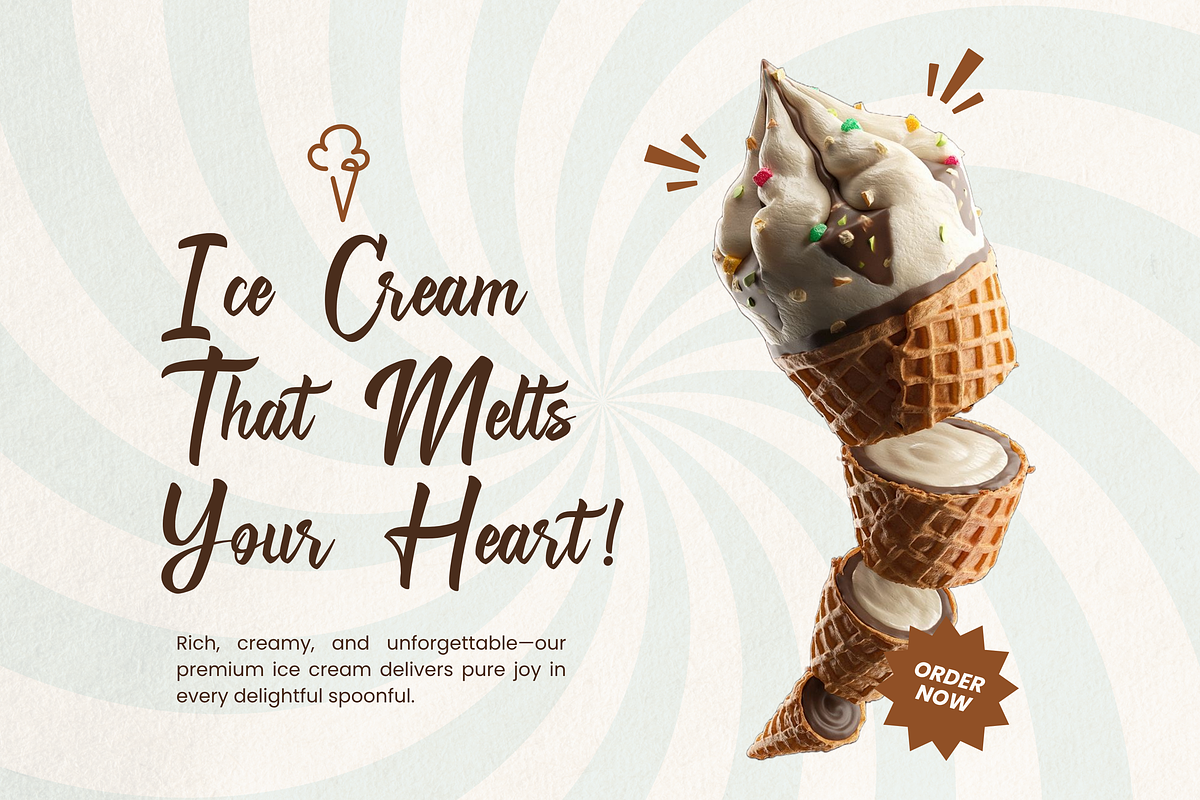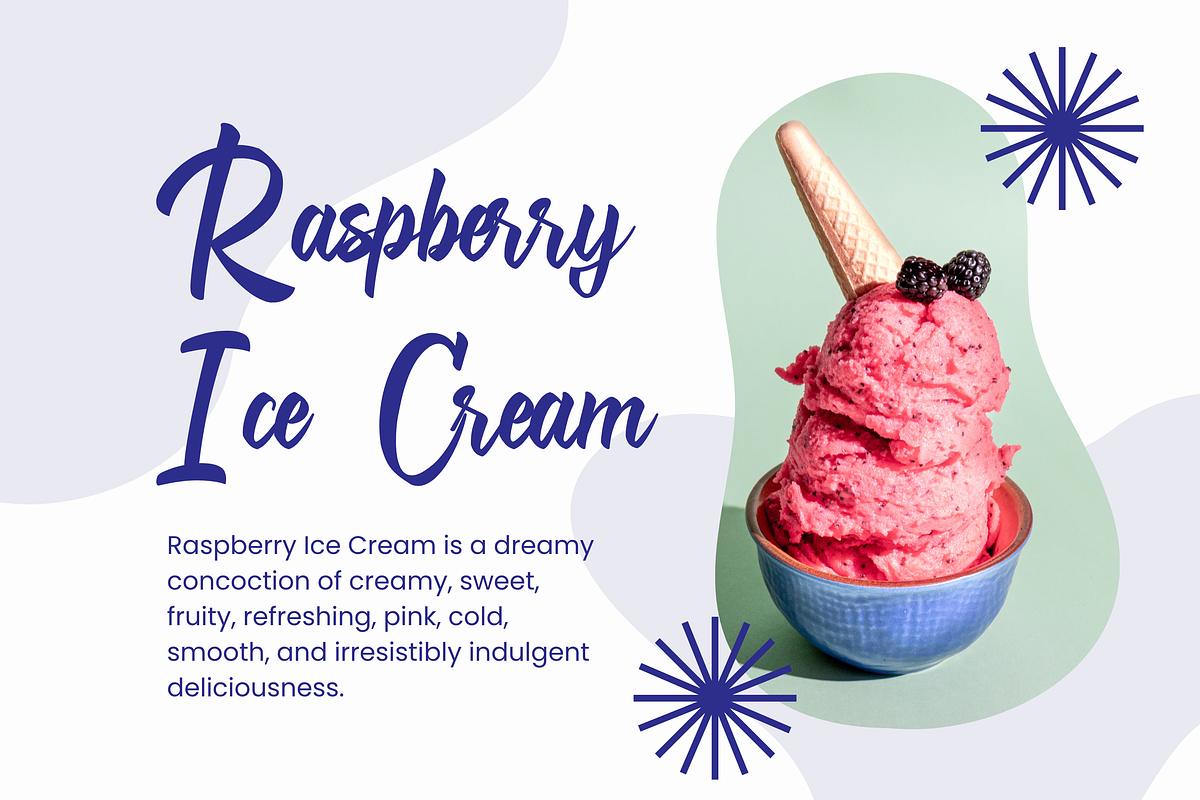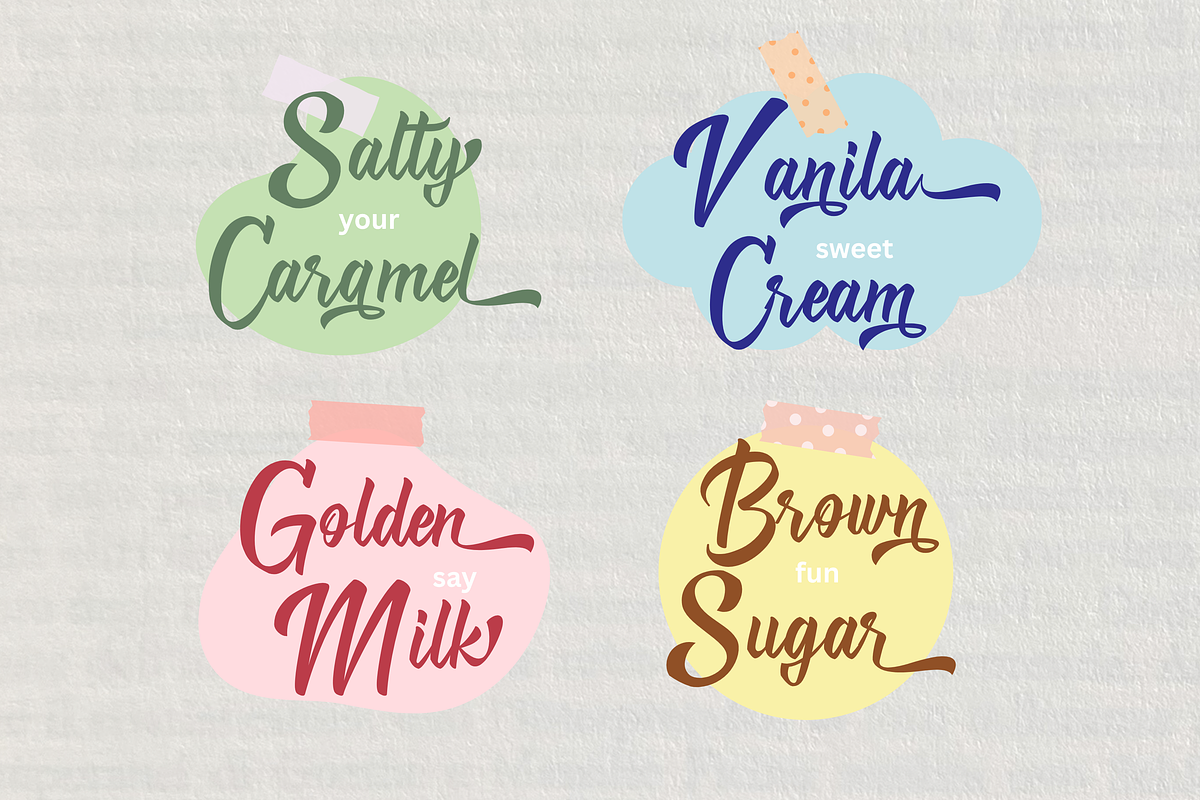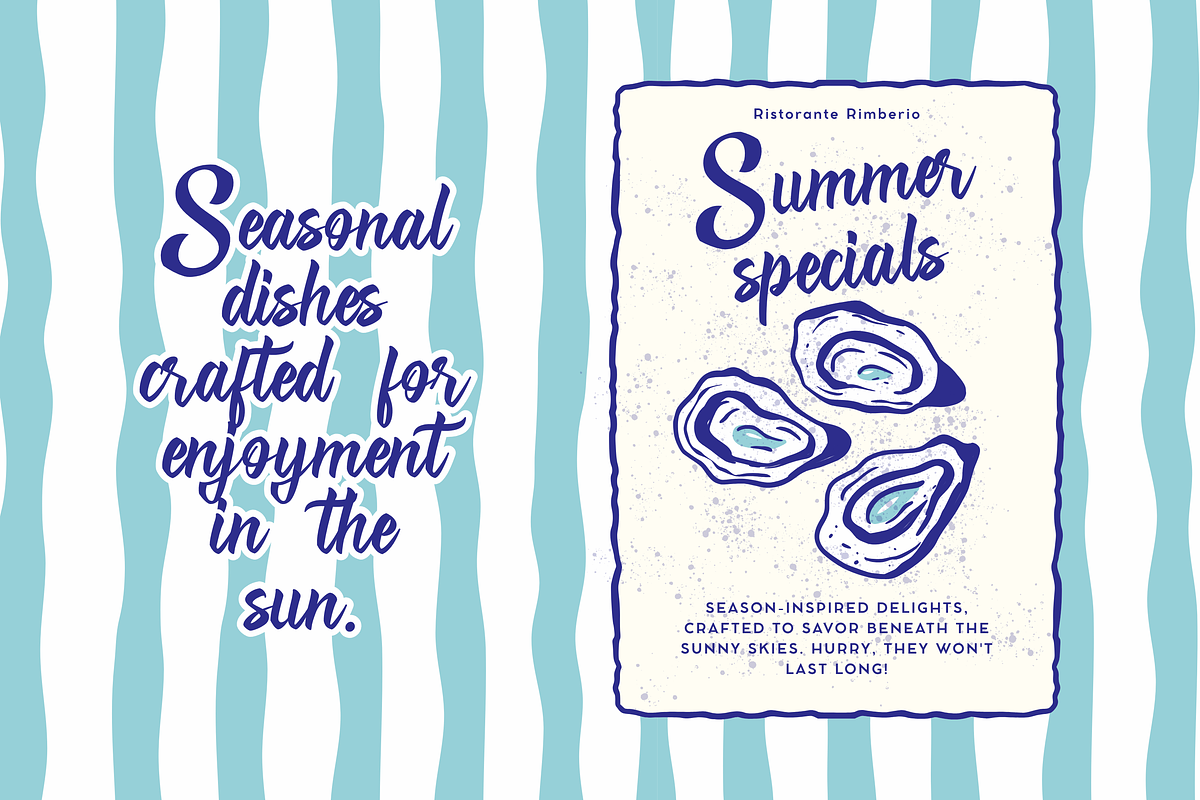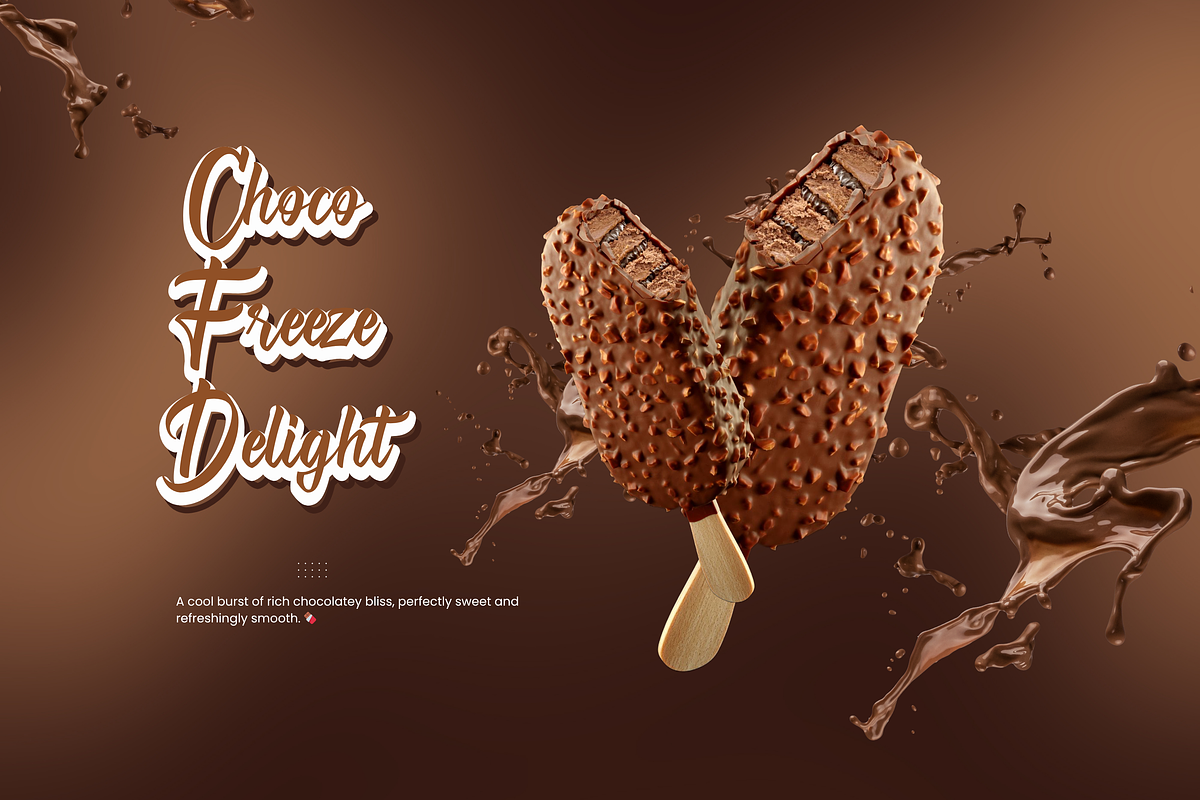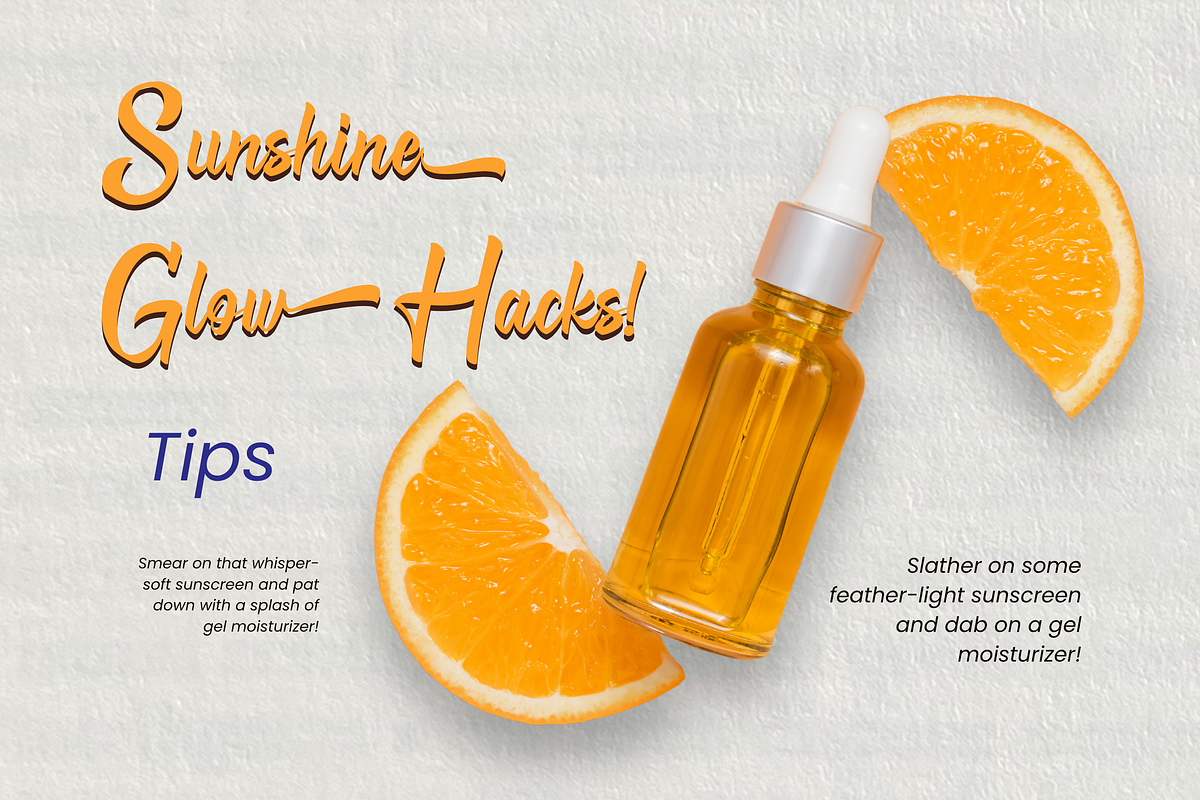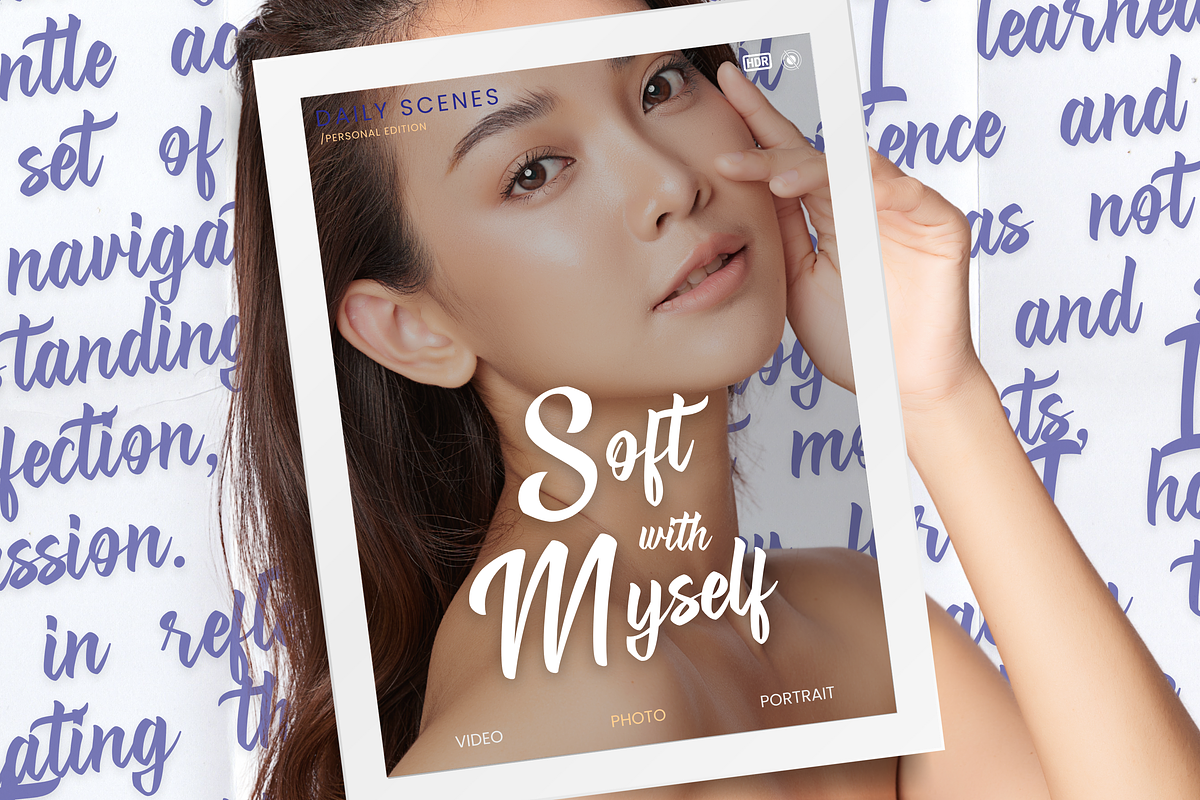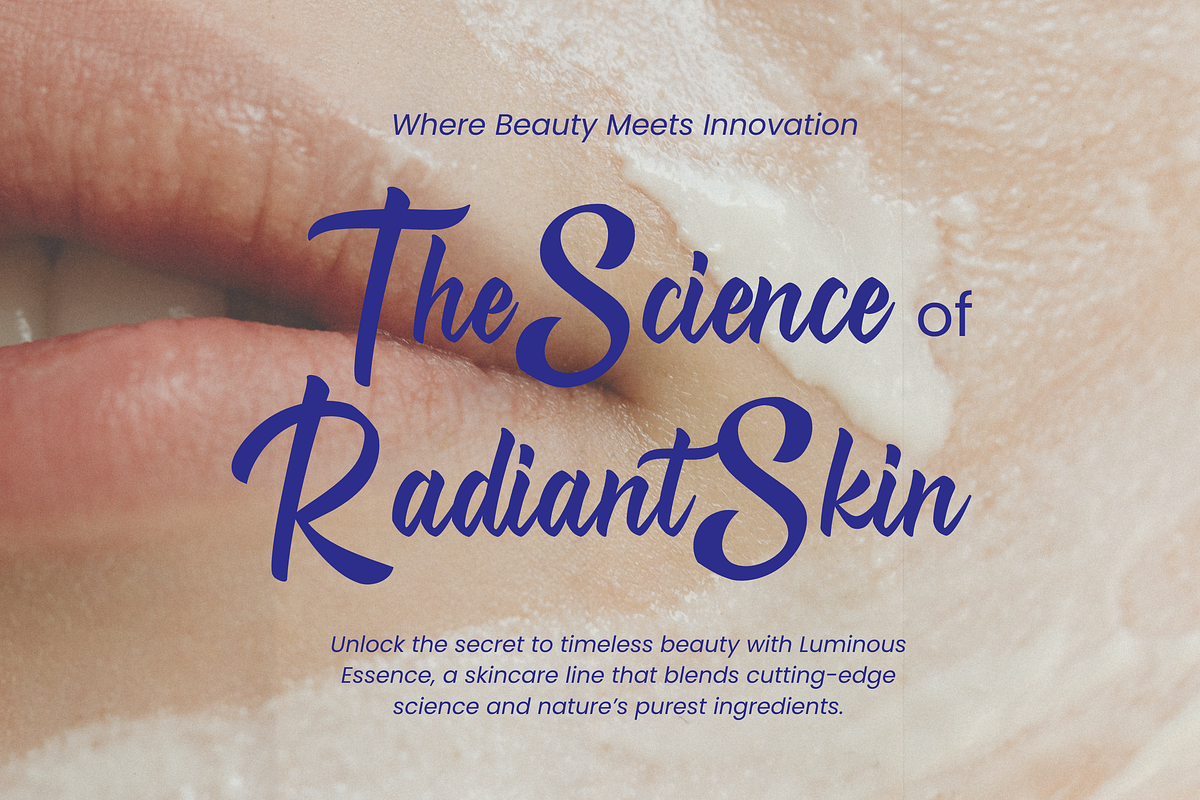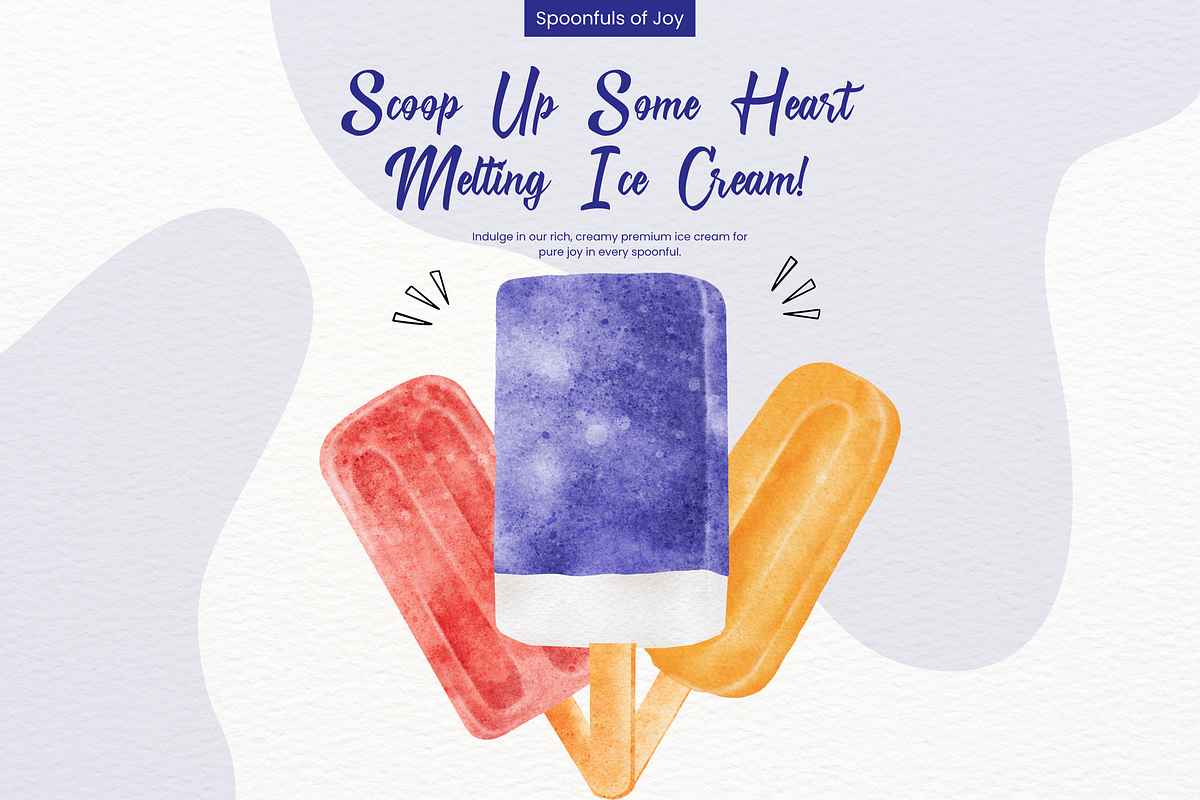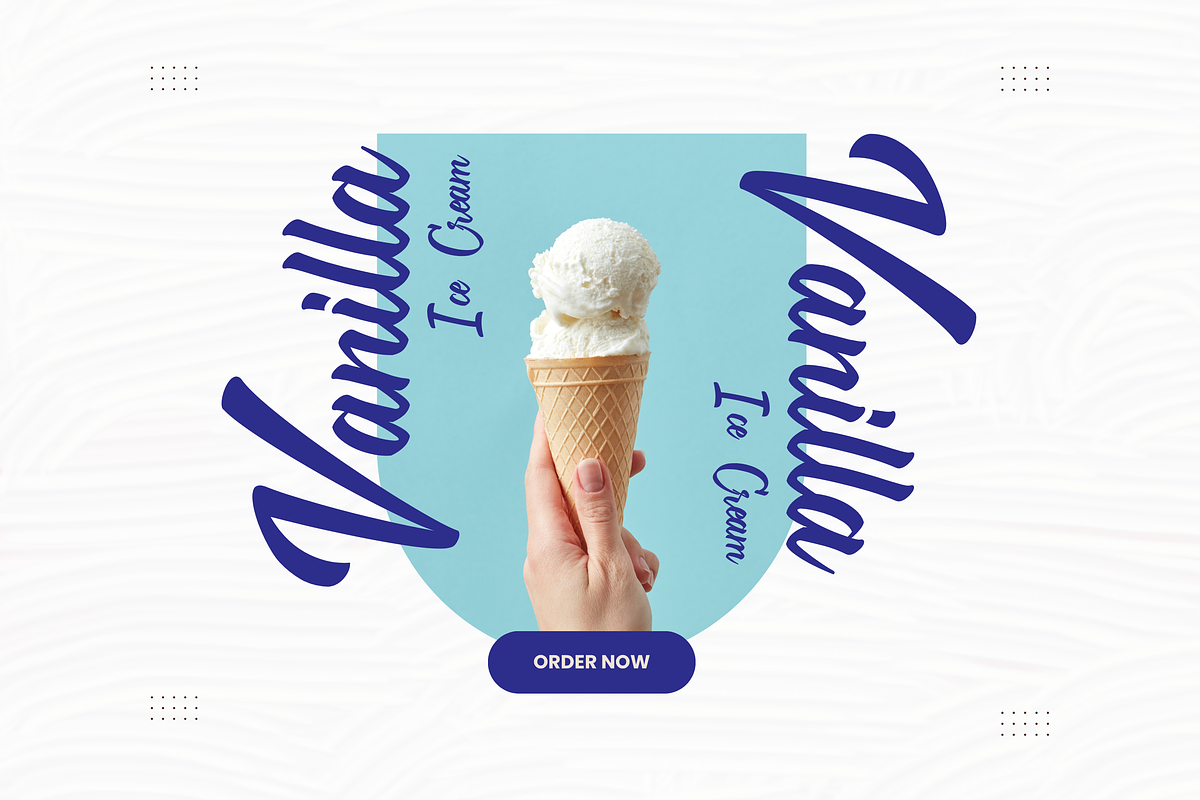
Blislyn
Blislyn – A Playful Layered Script Font Let your words twirl, bounce, and shine with Blislyn, a charming layered script font full of personality. Designed with smooth curves and lively swashes, Blislyn offers stackable layers to create vibrant titles, standout logos, and joyful design moments. Perfect for playful branding, sweet packaging, and anything that needs a spark of fun.